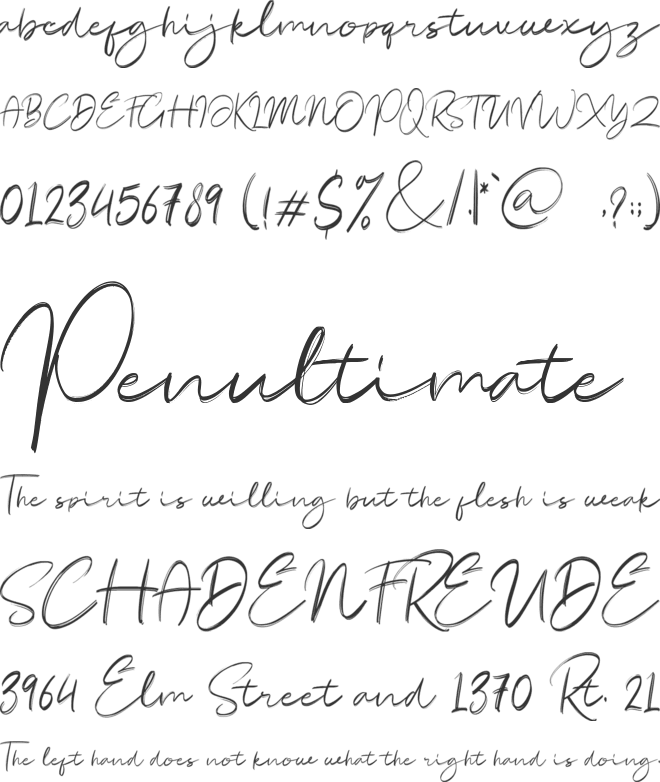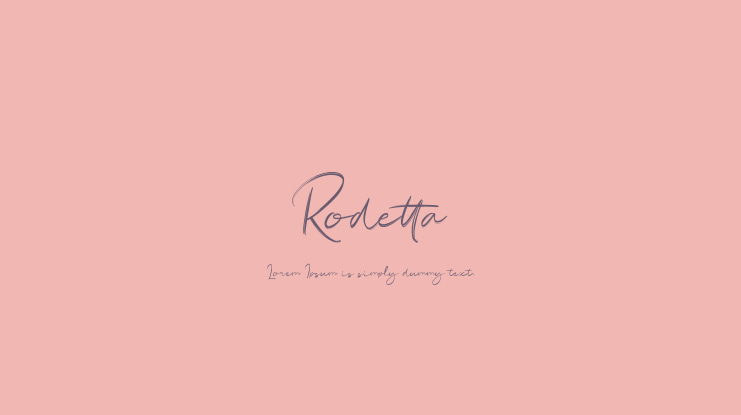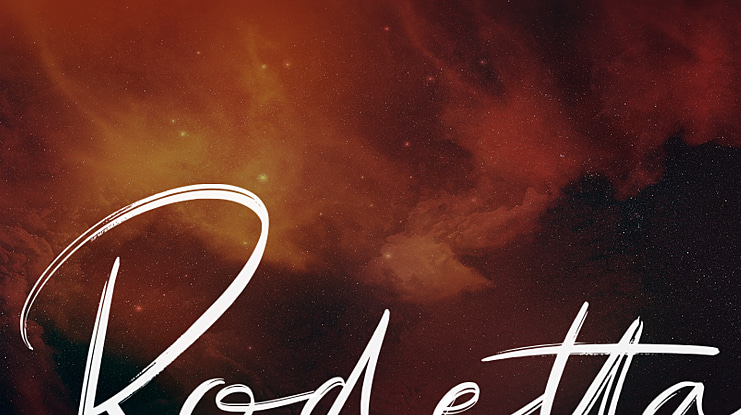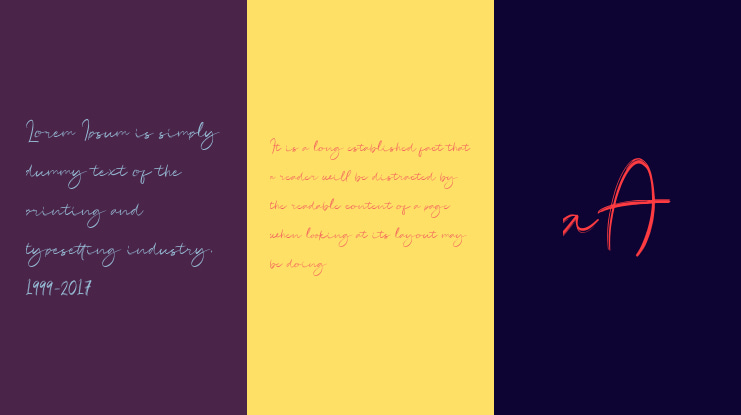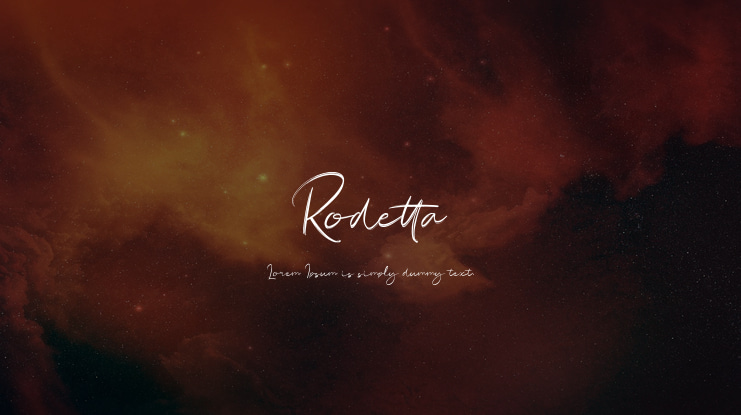
Rodetta Font
This is a textured brush font, a contemporary approach to design, handmade naturally with irregular base lines, it has very strong personality as a result. It looks wonderful on wedding invitations, thank you cards, quotes, greeting cards, logos, business cards and every other design which needs a handwritten touch.